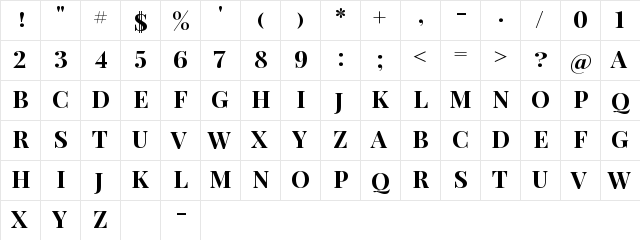
Neothic Regular
| Foundry | Vasily Draigo aka Daymarius |
| Designer | Vasily Draigo aka Daymarius |
Design Context for Neothic Typeface
Neothic offers clean, dependable letterforms without strong stylistic allegiance, making it a practical choice for designers who need flexibility.